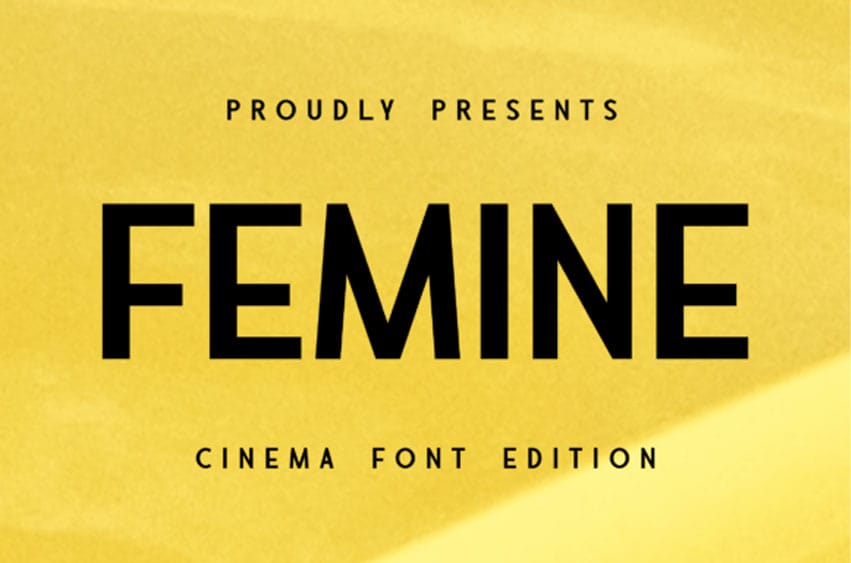
Femine Font Introducing an innovative sans serif font perfect for your groundbreaking film titles and valuable media displays. This unique font carves out letters in an engagingly eccentric manner, with slight irregularities adorning the center line and varying thickness scattered across different scales.
The result is a captivatingly fresh and intriguing look that sets your content apart on the screen. Available in both .OTF and .TTF formats, it’s extremely user-friendly, with other formats also attainable with easy conversion processes. Dive into an interesting, avant-garde typographic experience with this exceptional font.